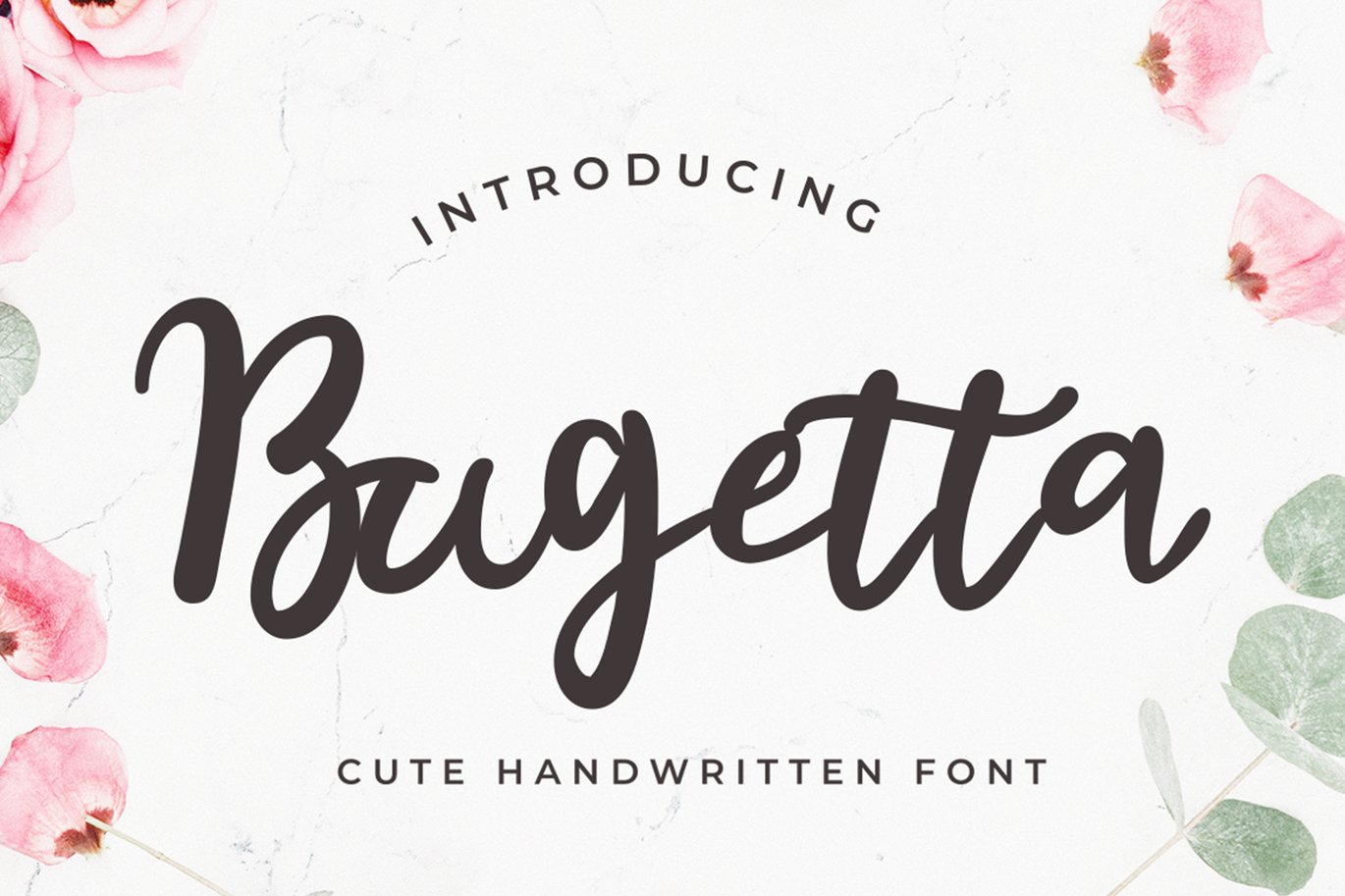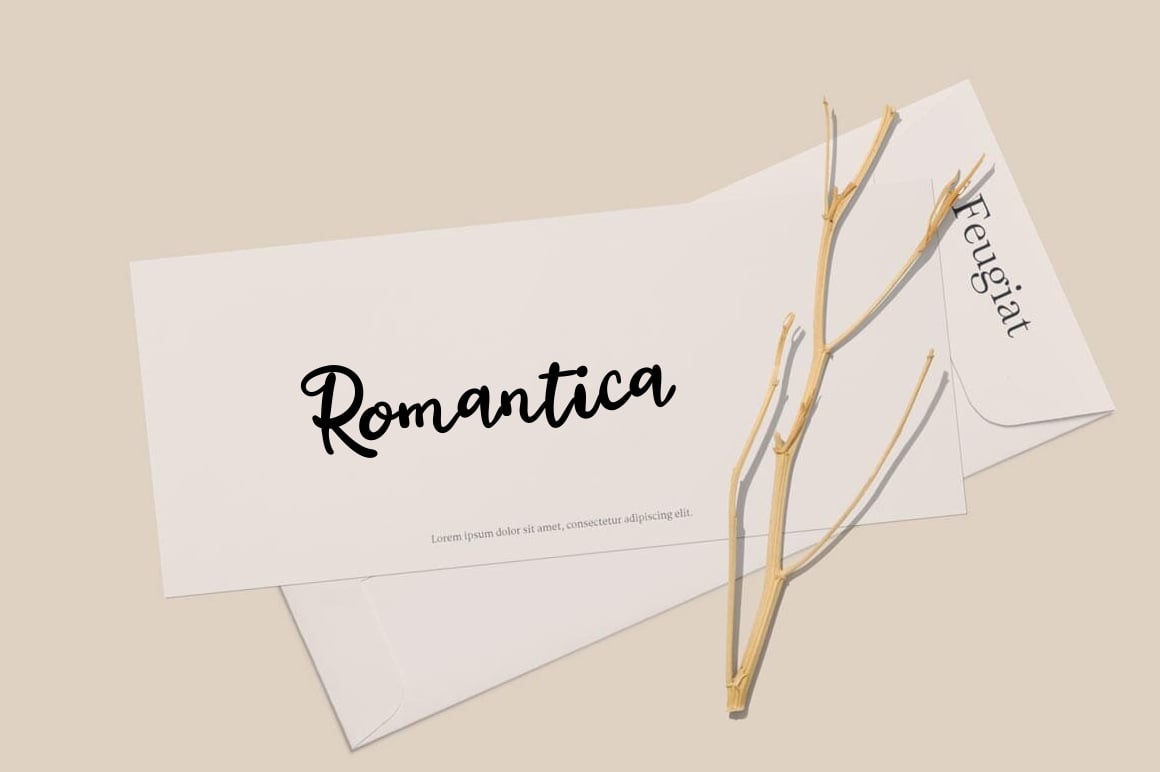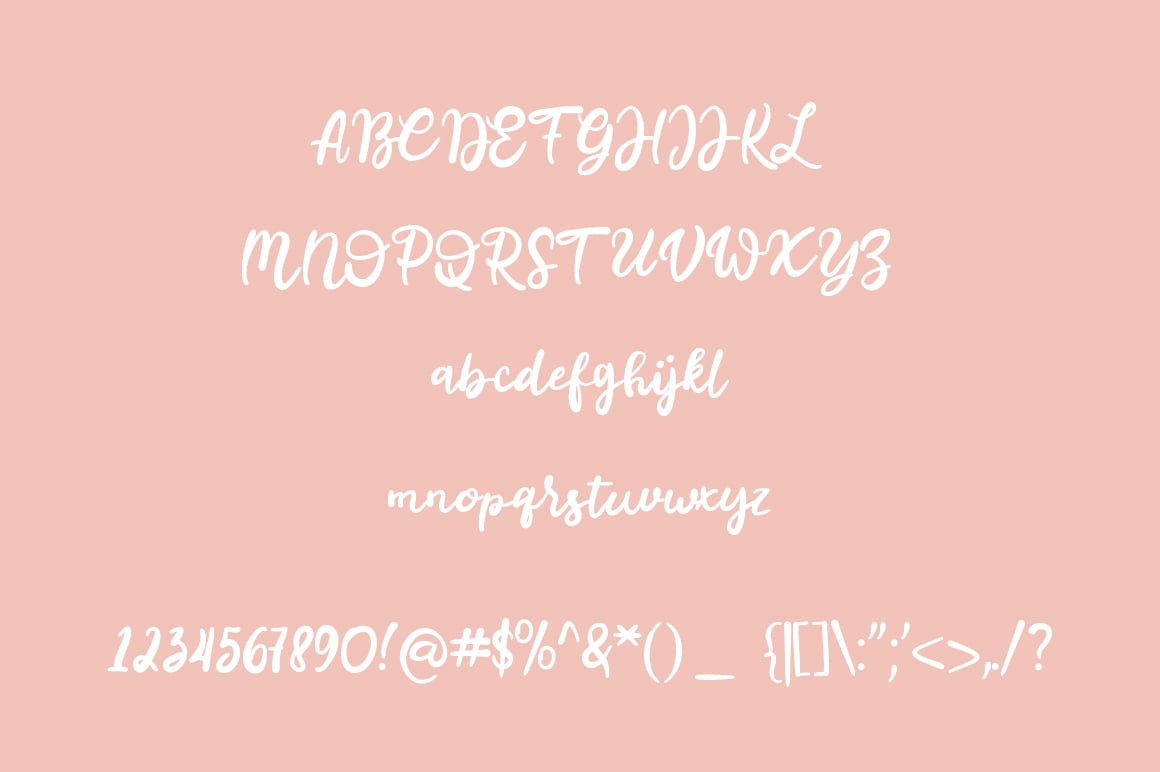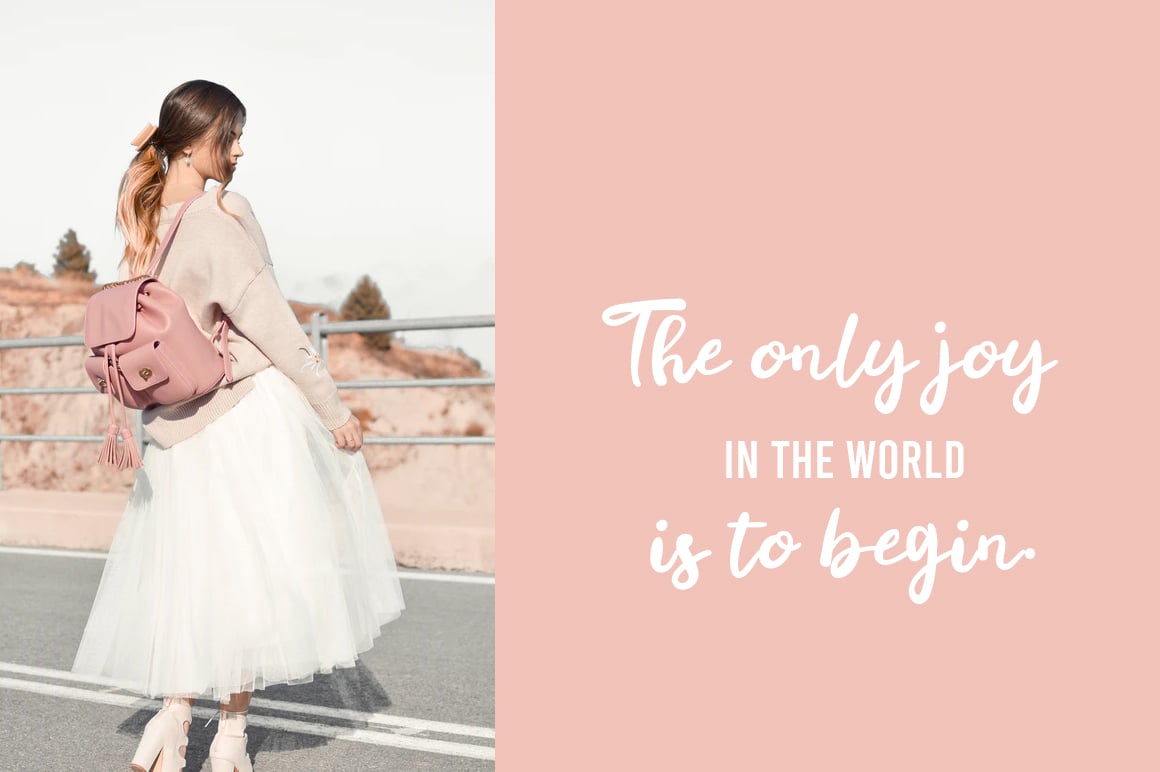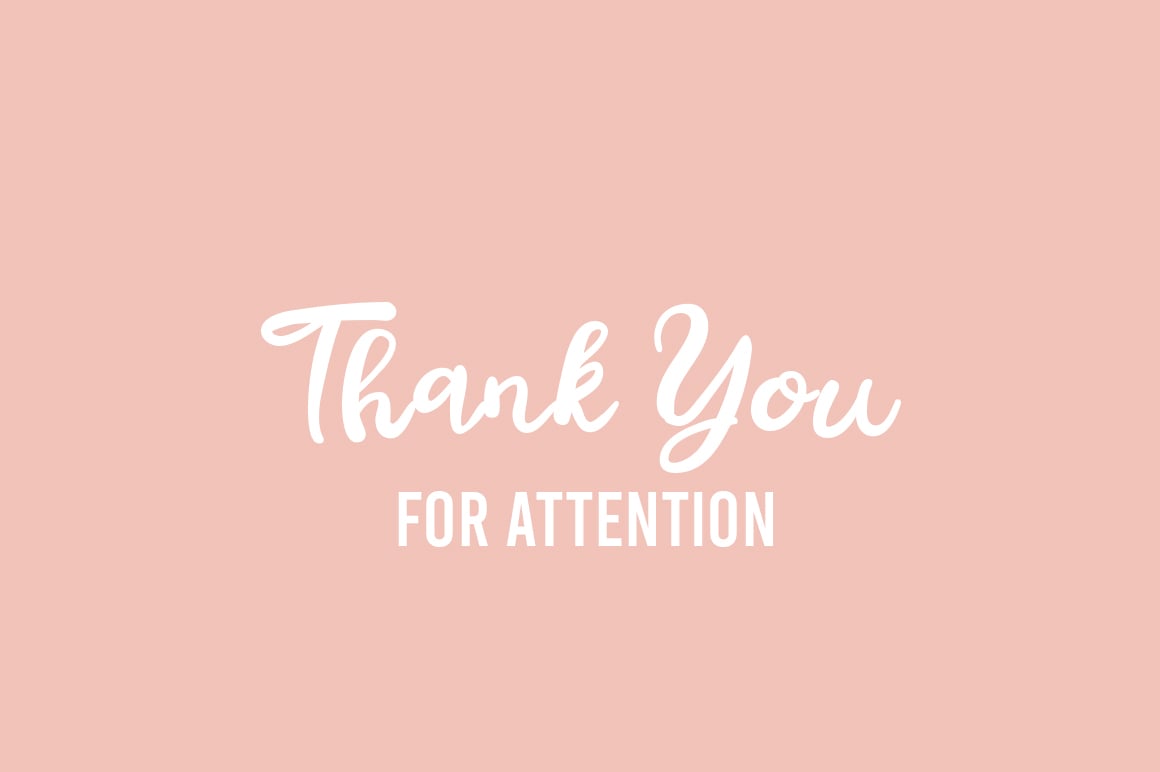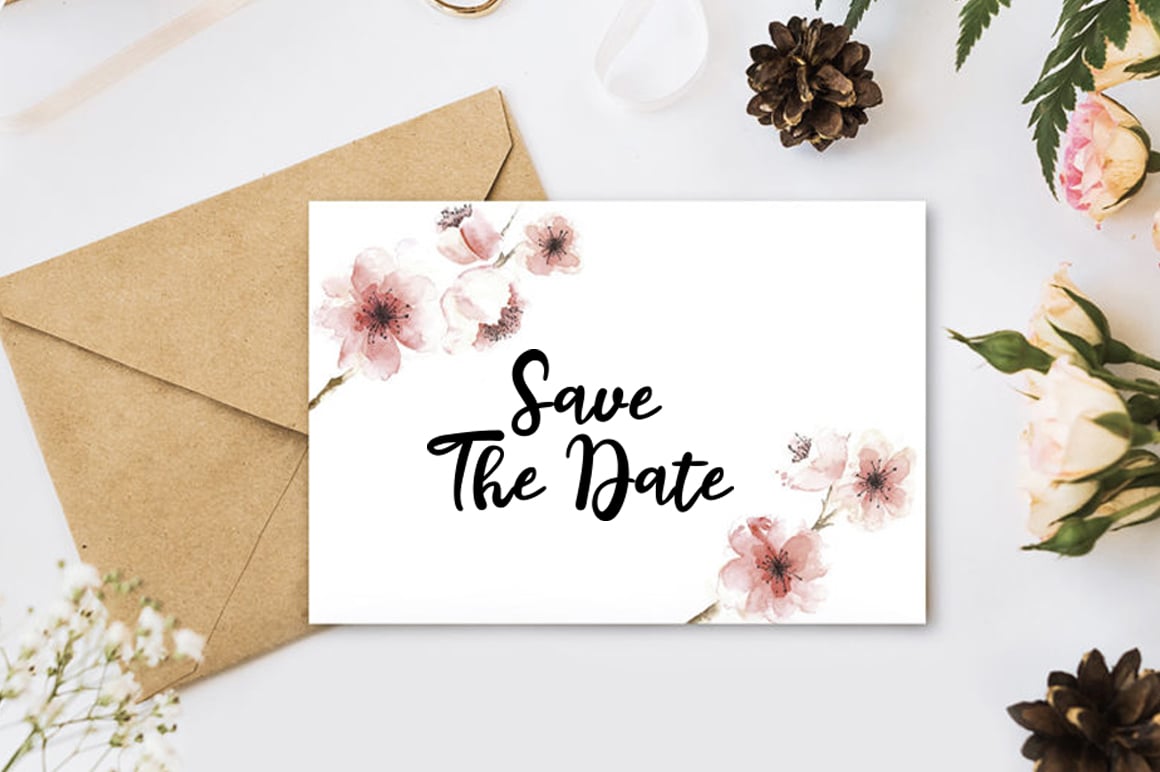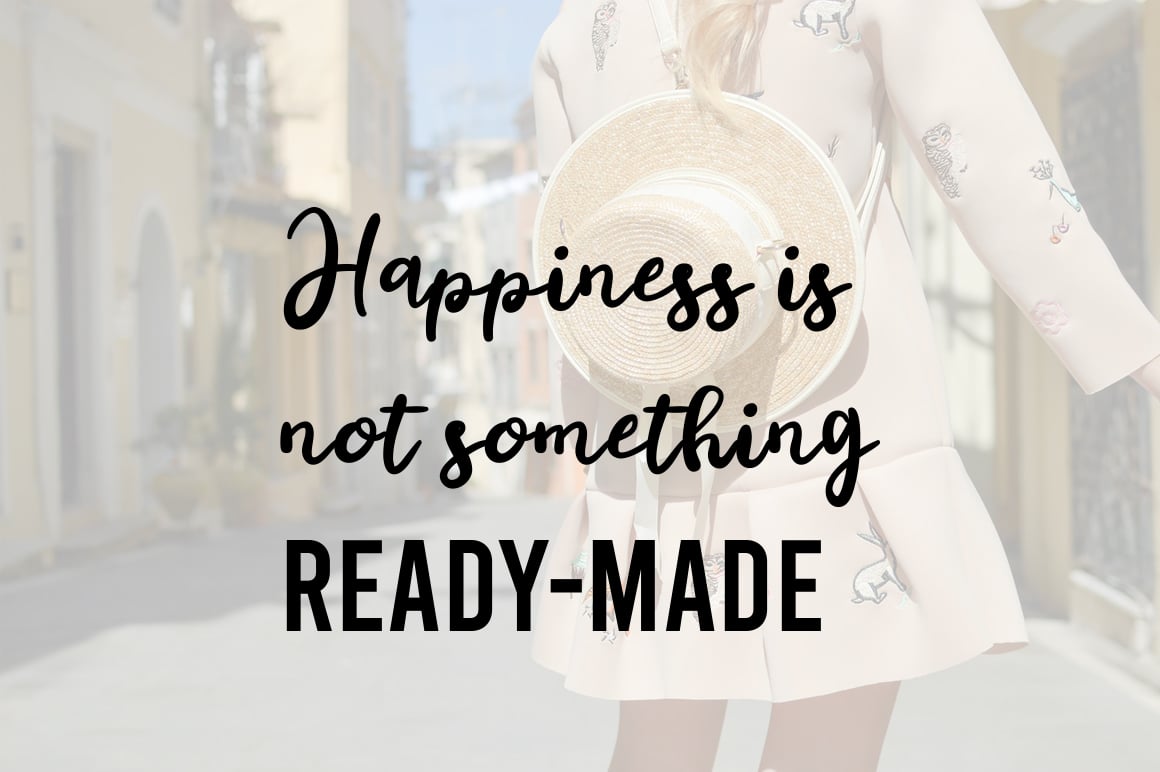
Bugetta Handwriting Font
Bugetta is a sweet and elegant handwritten font. Use this script font to add that special touch to any design idea you can think of!
Bugetta Type Features:
- Numerals & Punctuations
- Suitable for Headlines, Logotypes, Signs, Posters, Letterhead, T-Shirt and many more.
Support Western Europe Language